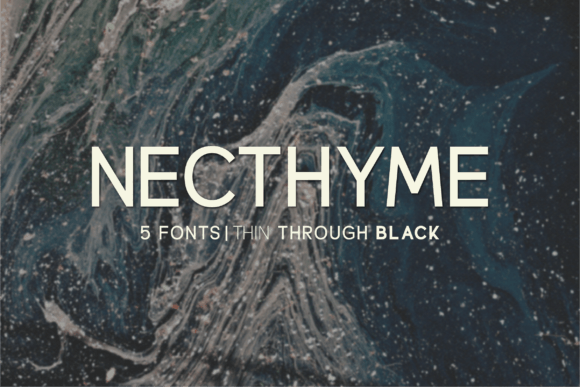
Behold Necthyme, an exceptional sans serif font family, meticulously crafted to grace your creative masterpieces with elegance, modernity, and boundless versatility. Its five distinct weights—THIN, LIGHT, REGULAR, BOLD, and BLACK—unveil a symphony of creative possibilities, unlocking your design potential.
With Necthyme, your artistic visions will effortlessly transform into captivating realities. Whether you're a seasoned designer or a creative enthusiast, this font family will elevate your projects to new heights of sophistication and style. Immerse yourself in the world of Necthyme, where every character dances with grace, poise, and an undeniable charm.
Adorn your T-shirt designs with Necthyme's unwavering precision, allowing your artistry to speak volumes. The font's crisp, clean lines will bring your designs to life, ensuring they stand out with an air of distinction. Unleash your creativity and explore the limitless possibilities that Necthyme holds, transforming ordinary T-shirts into walking works of art.
With Necthyme, you'll discover a font family that effortlessly blends sophistication and contemporary flair. Its timeless elegance will add a touch of refinement to your creations, while its modern aesthetic ensures your designs remain relevant and captivating. Witness the seamless harmony of tradition and innovation as Necthyme enhances your projects with an aura of timeless brilliance.